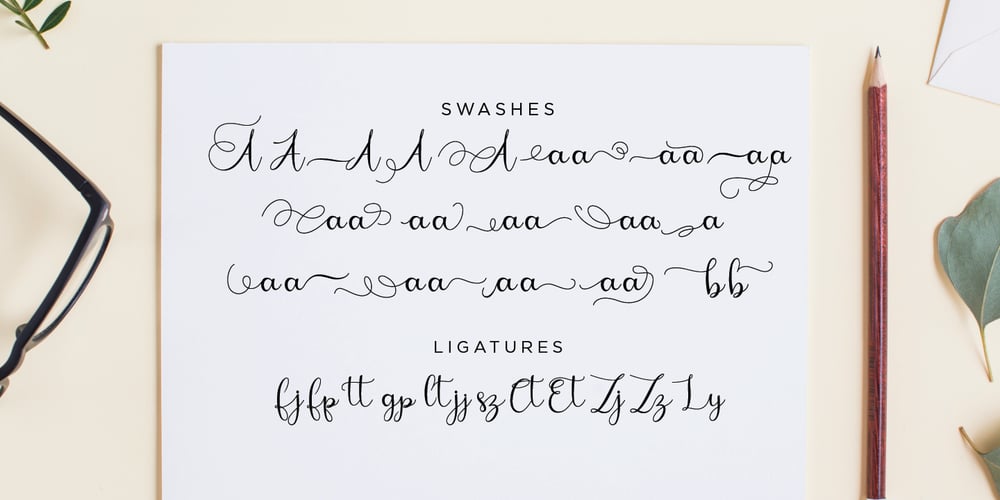
Bougainvillea
Bougainvillea font
Bougainvillea Font Family was designed by Fahri Rizal and published by Fana Studio. Bougainvillea contains 1 styles and family package options. Bougainvillea Script is a beautiful script which offers you a personal touch to your latest art project with elegant, classy and modern look. Bougainvillea Script is perfect for many different project such as logos & branding, invitations, stationery, wedding designs, social media posts, advertisements, product packaging, product designs, label, photography, watermark, special events or anything that need handwriting taste. Thank you for your purchase! Hope you enjoy with our font! Best Regards, FanaStudio